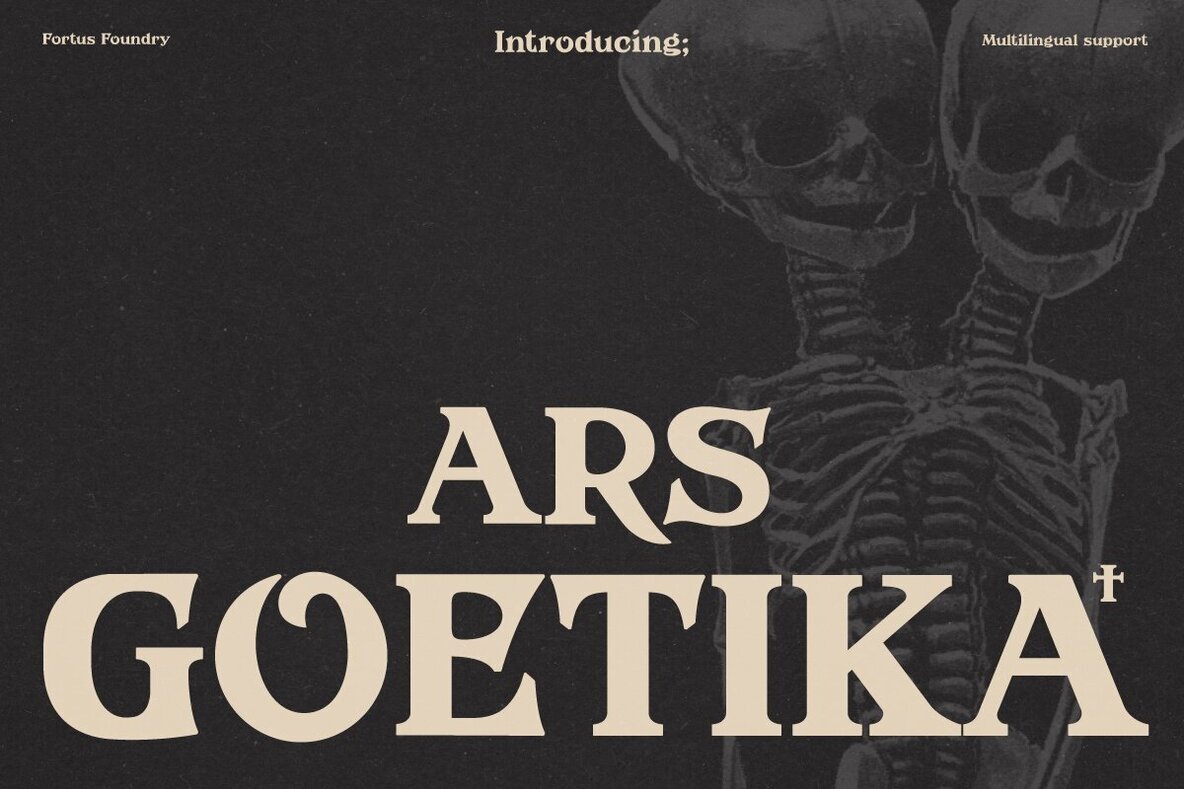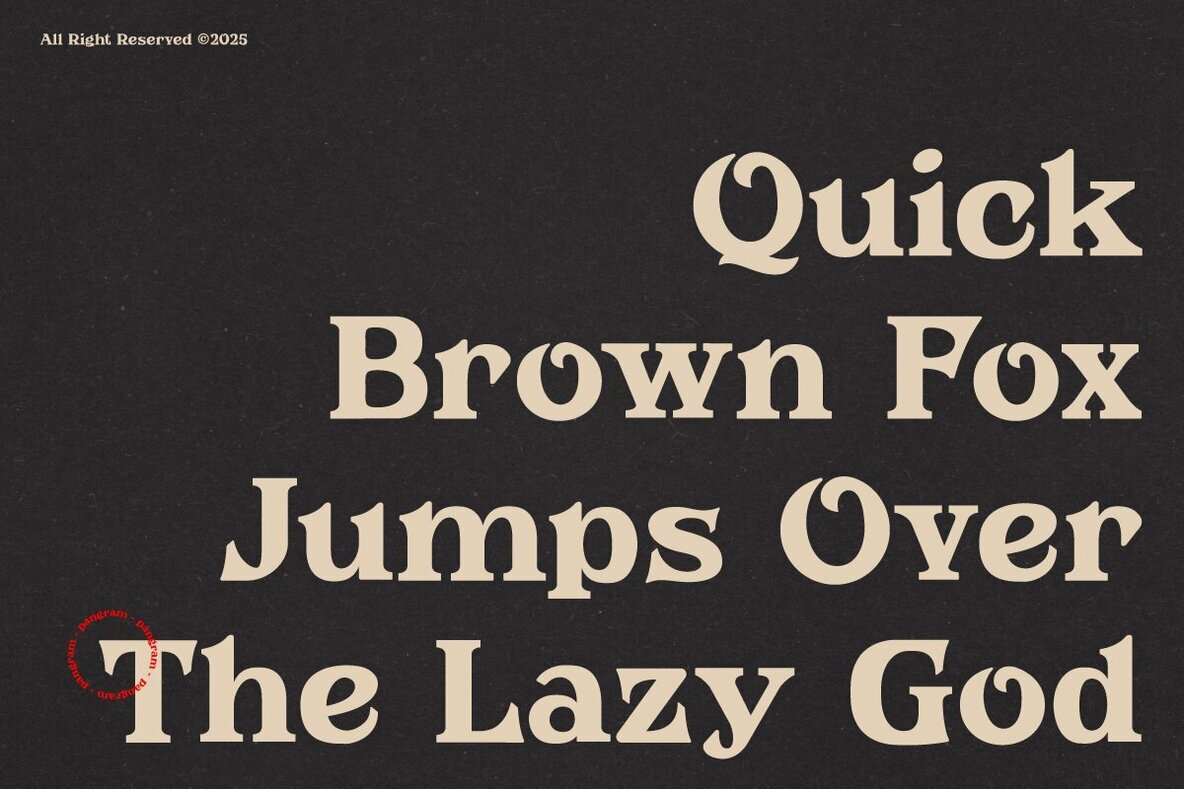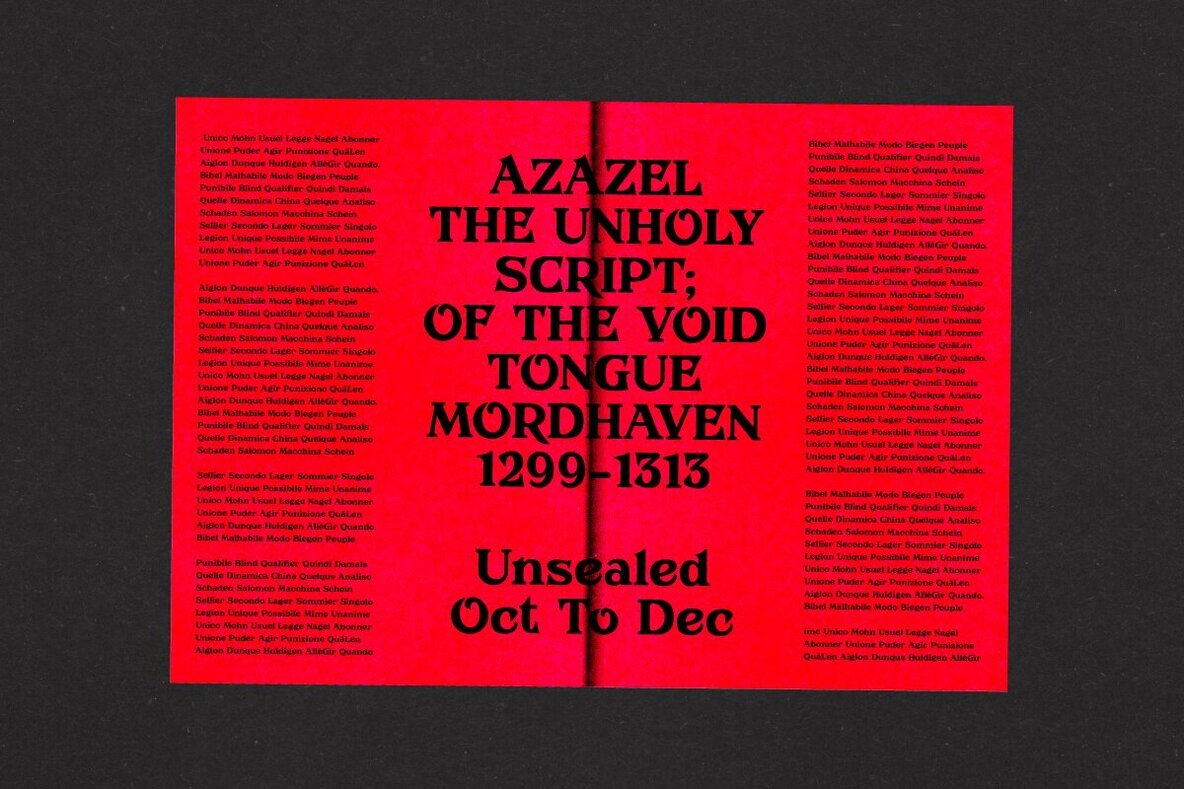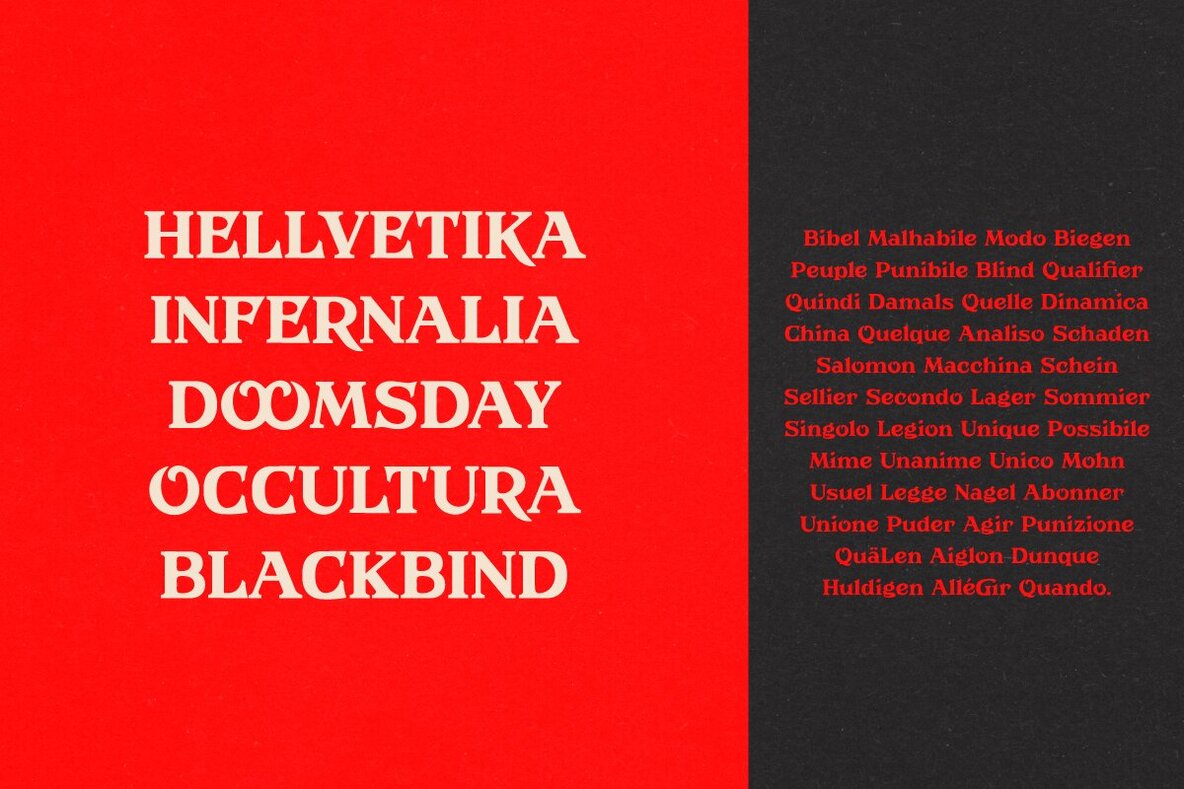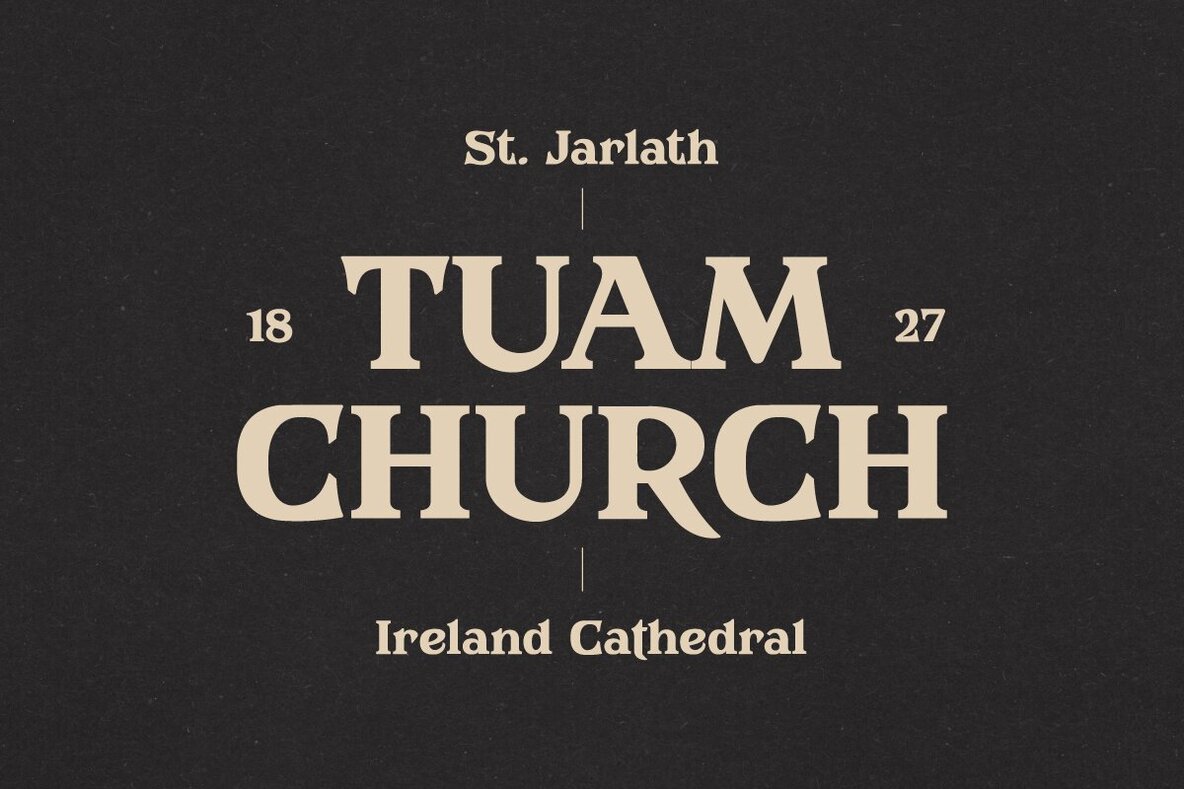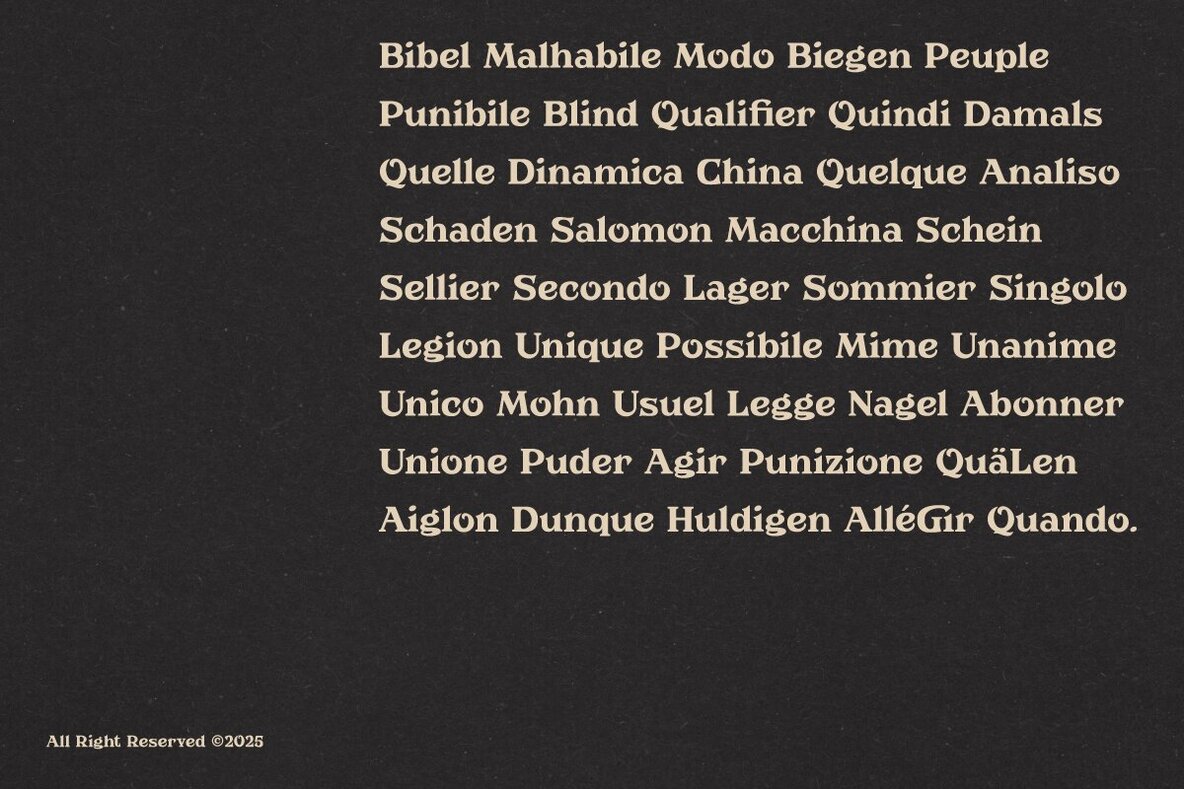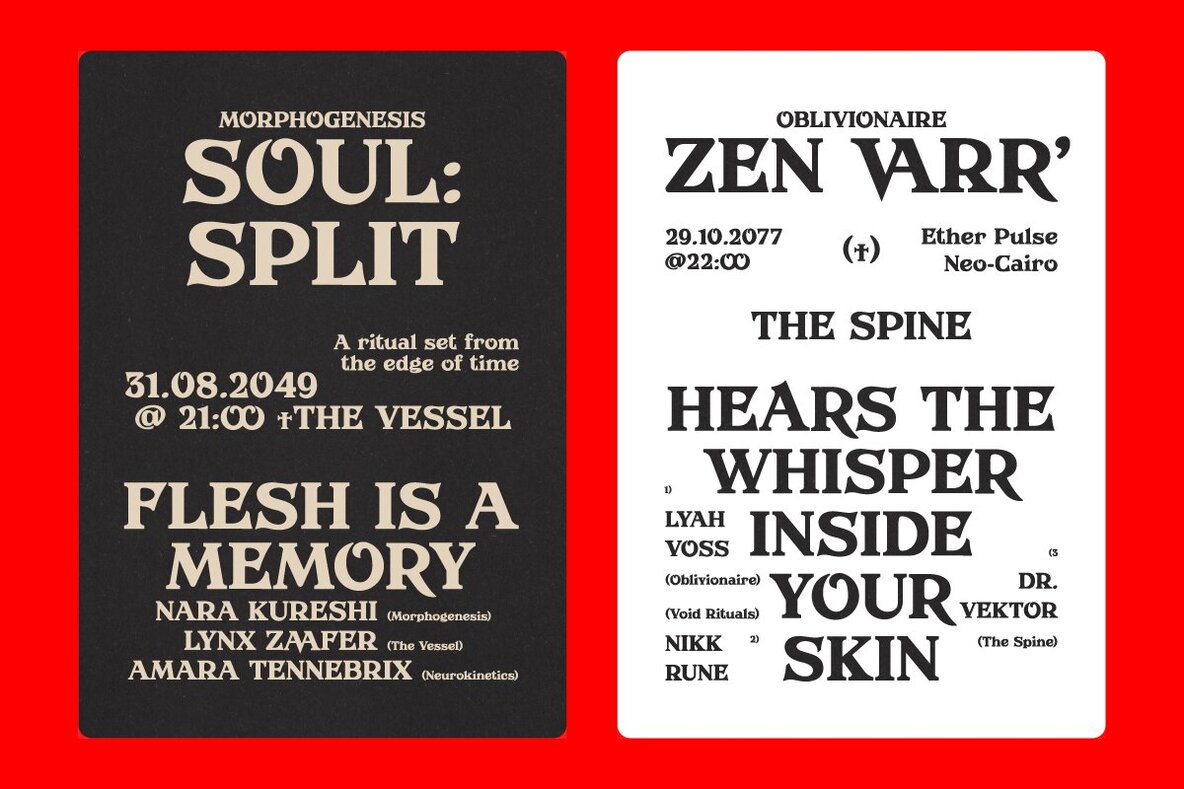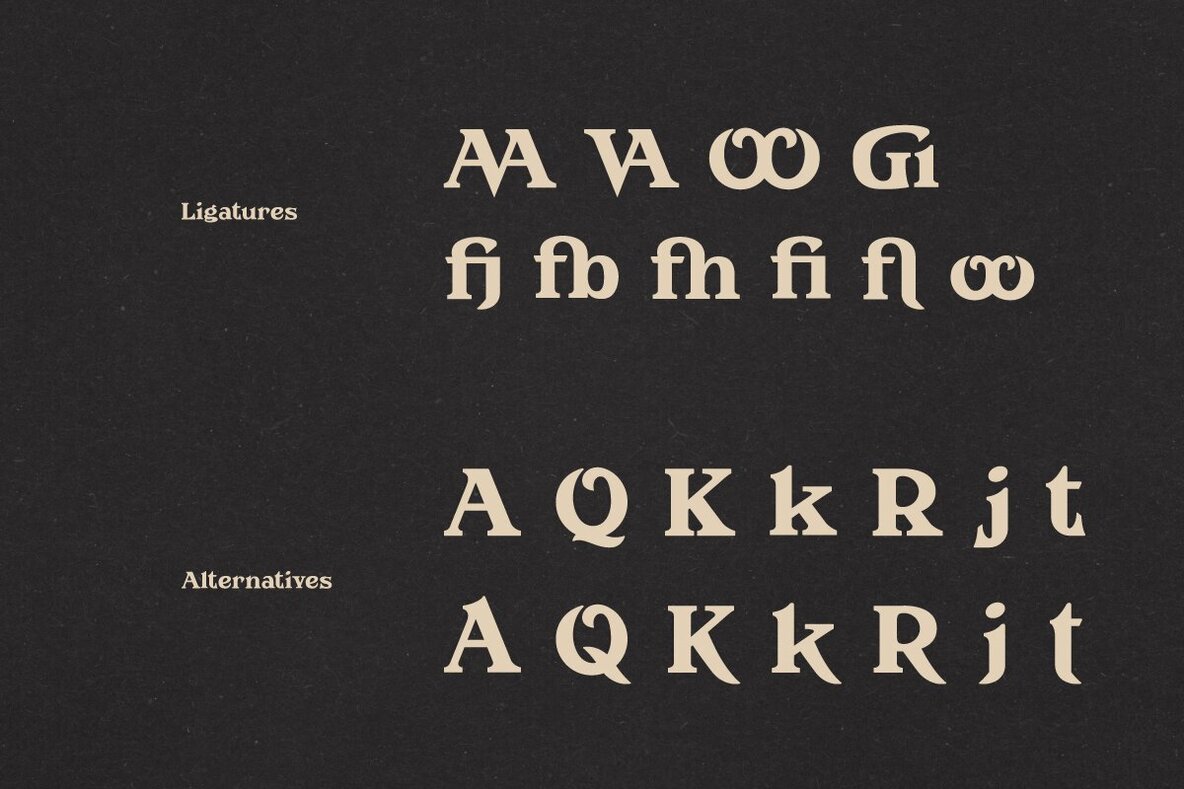
Ars Goetika
Dive into the enigmatic world of typography with Ars Goetika, a serif typeface inspired by the arcane grimoires of old. Its bold strokes and exaggerated curves evoke the mysticism and menace found in vintage horror and ceremonial art. Tailored for daring designers, Ars Goetika adds an air of theatrical elegance to posters, album covers, and ritual zines. Whether channeling ancient glyphs or gothic rebellion, Ars Goetika bears the weight of countless whispered incantations, offering a touch of elegant darkness to any project.Ars Goetika: A Serif Typeface Steeped in Occult Charm